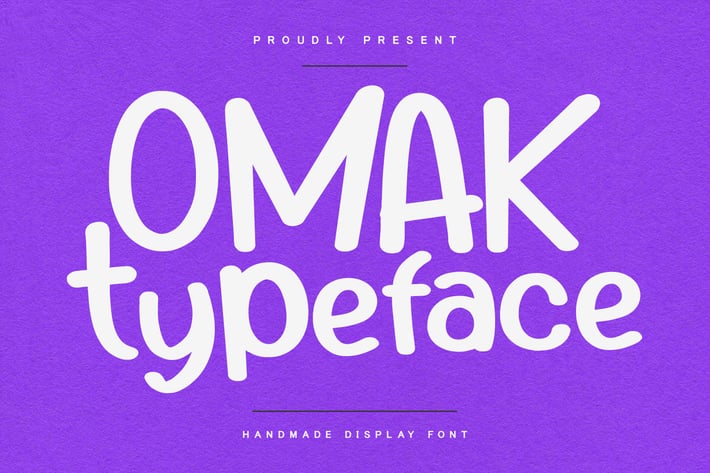
Omak Handmade Display Font
Omak handmade display font, fun character with ligatures. To give you an extra creative work. Omak handmade display font support multilingual language.